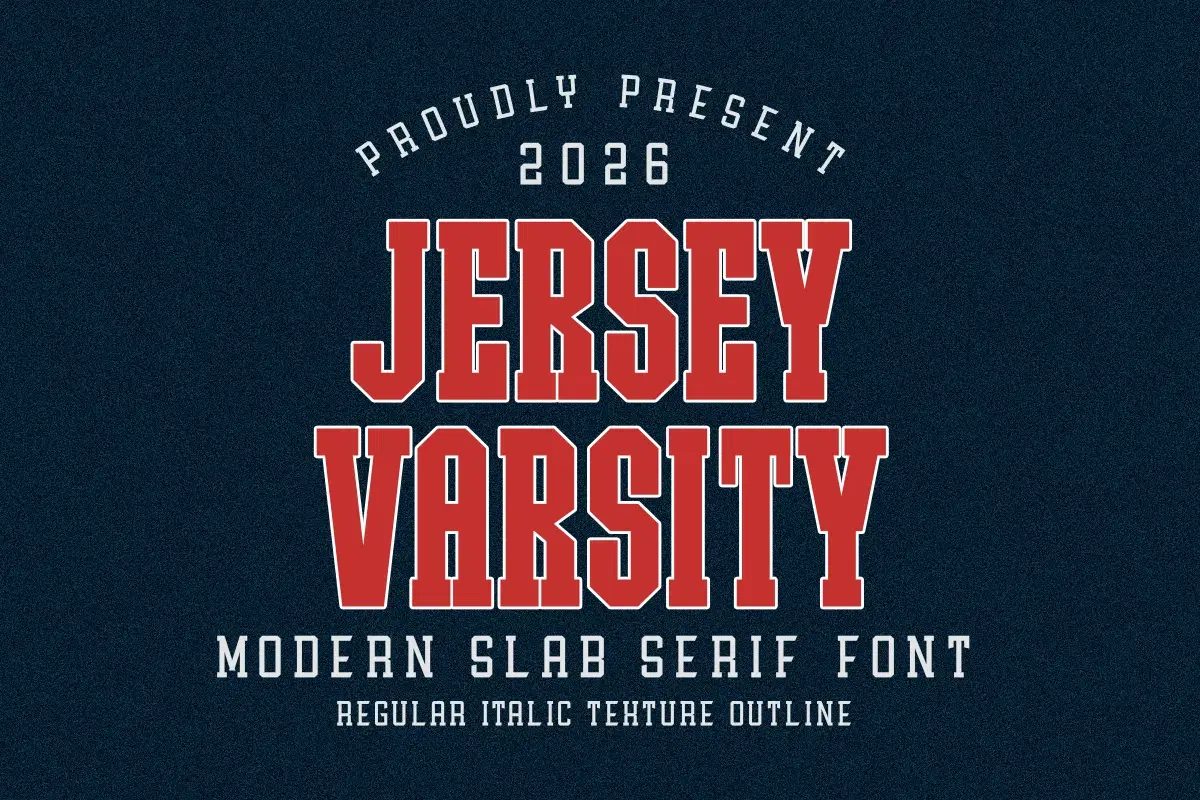
Immerse yourself in the contemporary sophistication of Jersey Varsity, a distinguished slab serif font arrayed with a range of styles including regular, italic, outline, and texture. Perfectly suited for T-Shirt customization, quintessential quotes, impressive logos, laser cut designs, stunning signs, textile decoration, print production, label creation and even coffee mug enhancement, it effortlessly bridges the gap between modern flair and vintage charm. Jersey Varsity is ready to lend an air of finesse to any design demanding a unique touch of the old and the new.